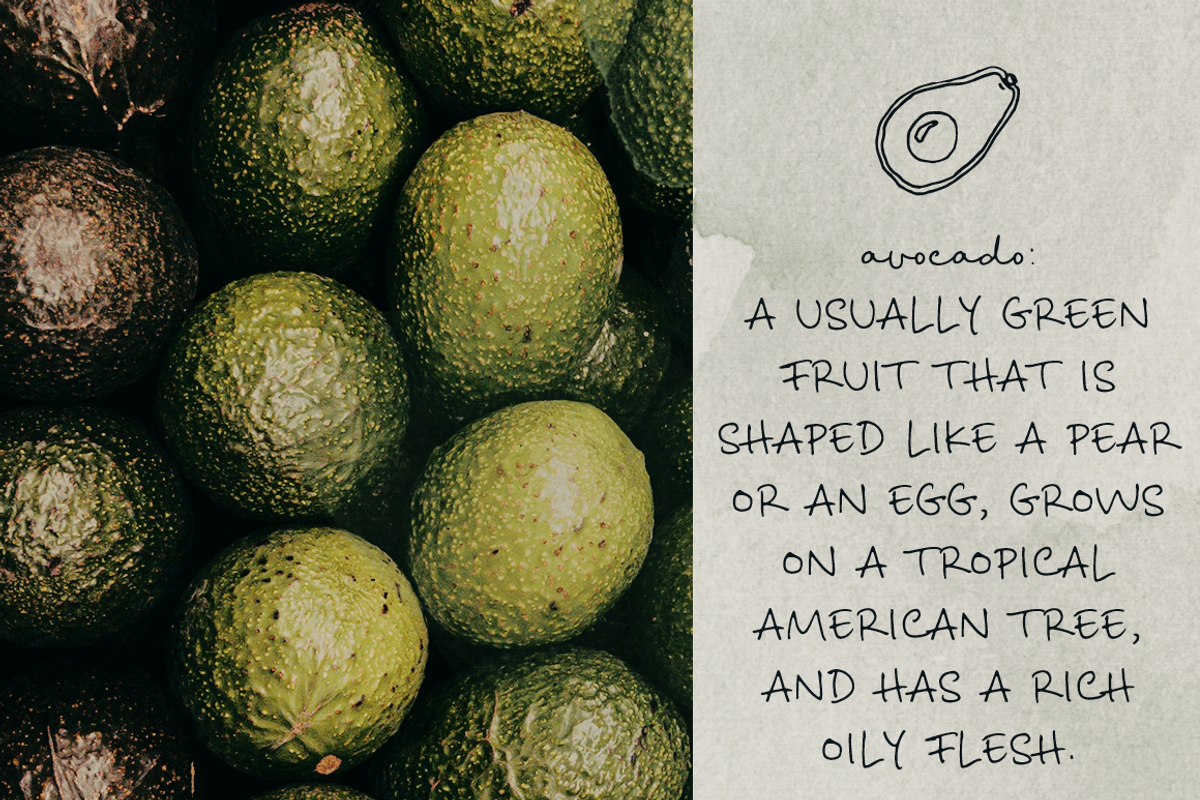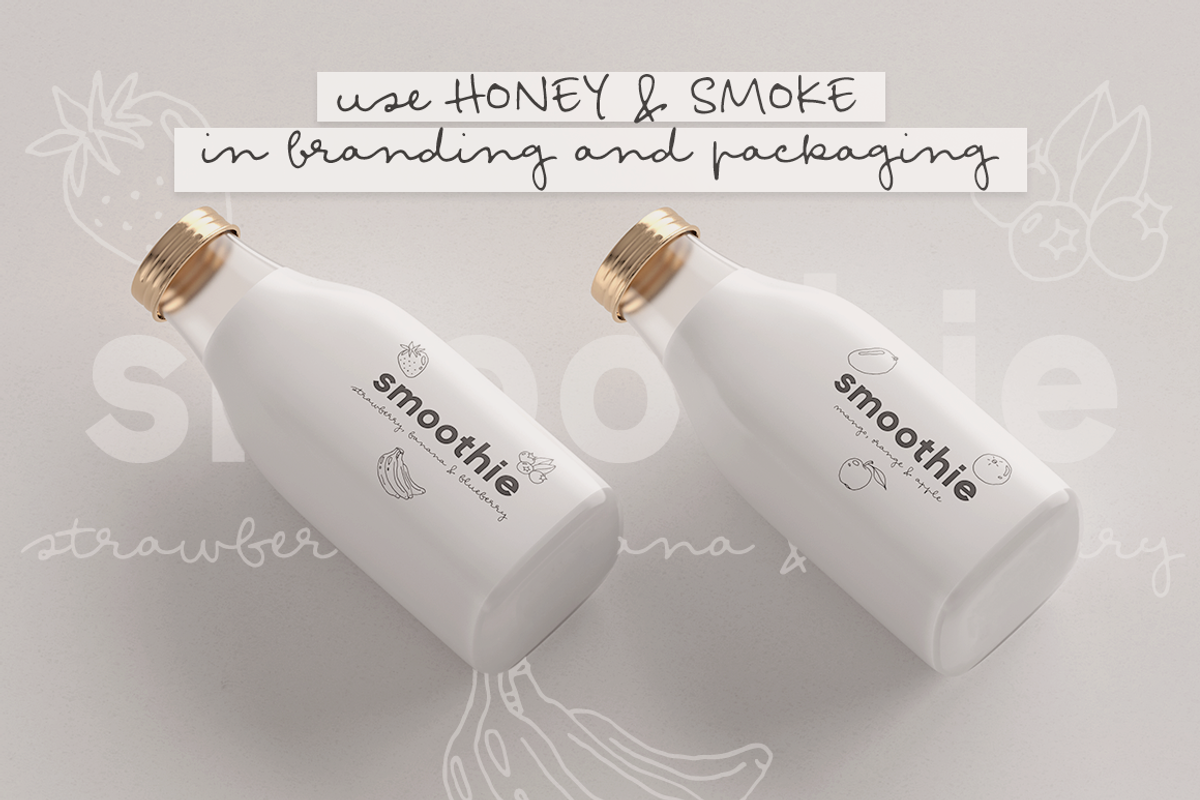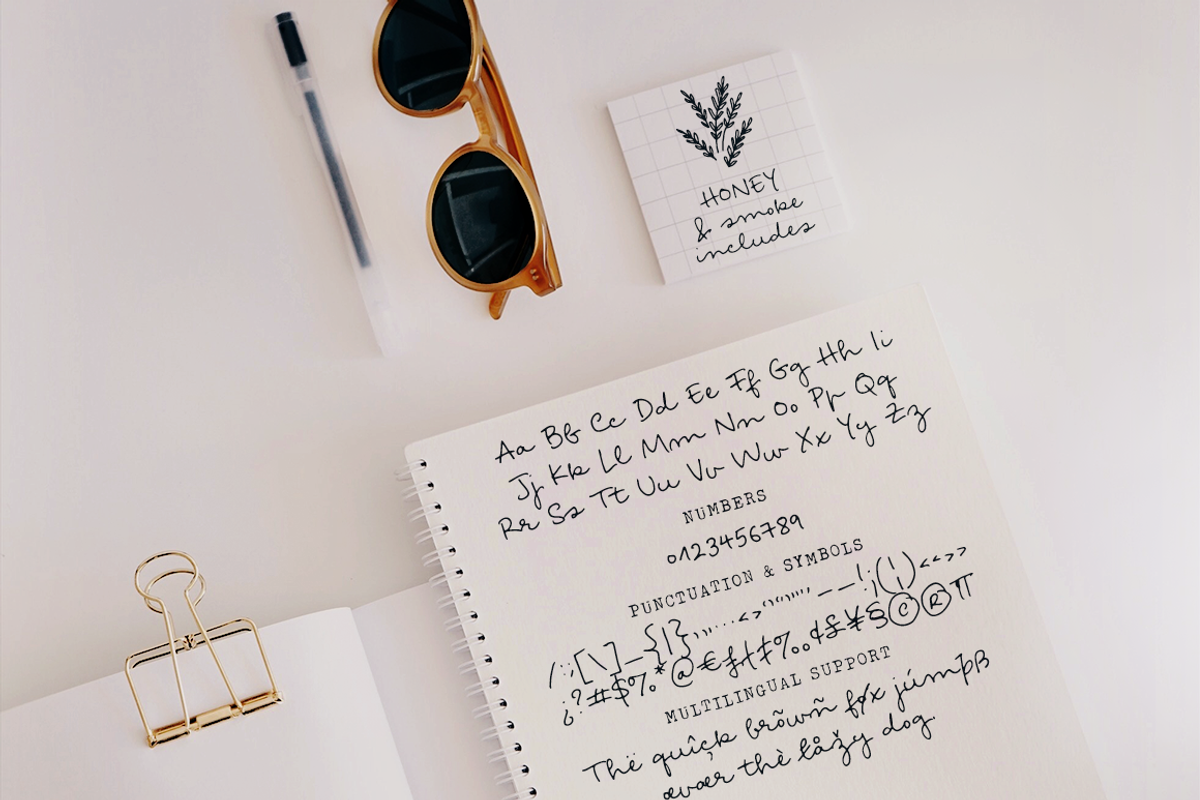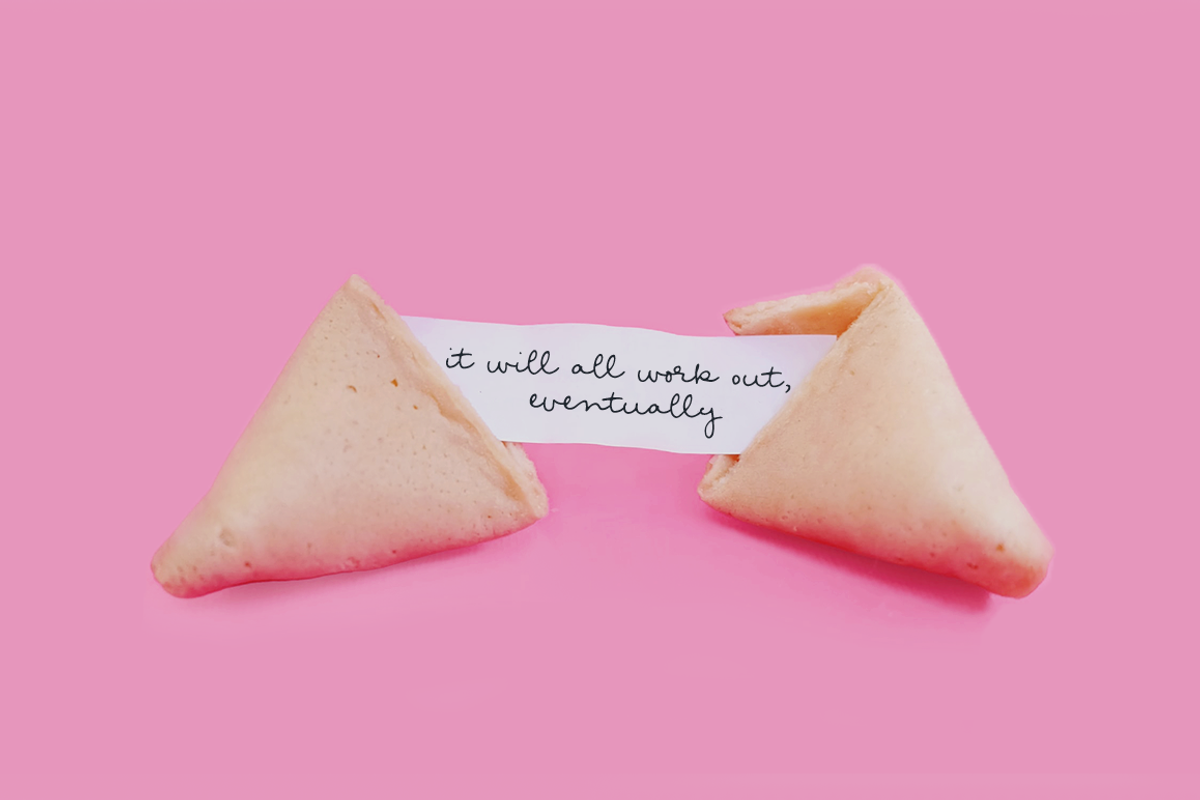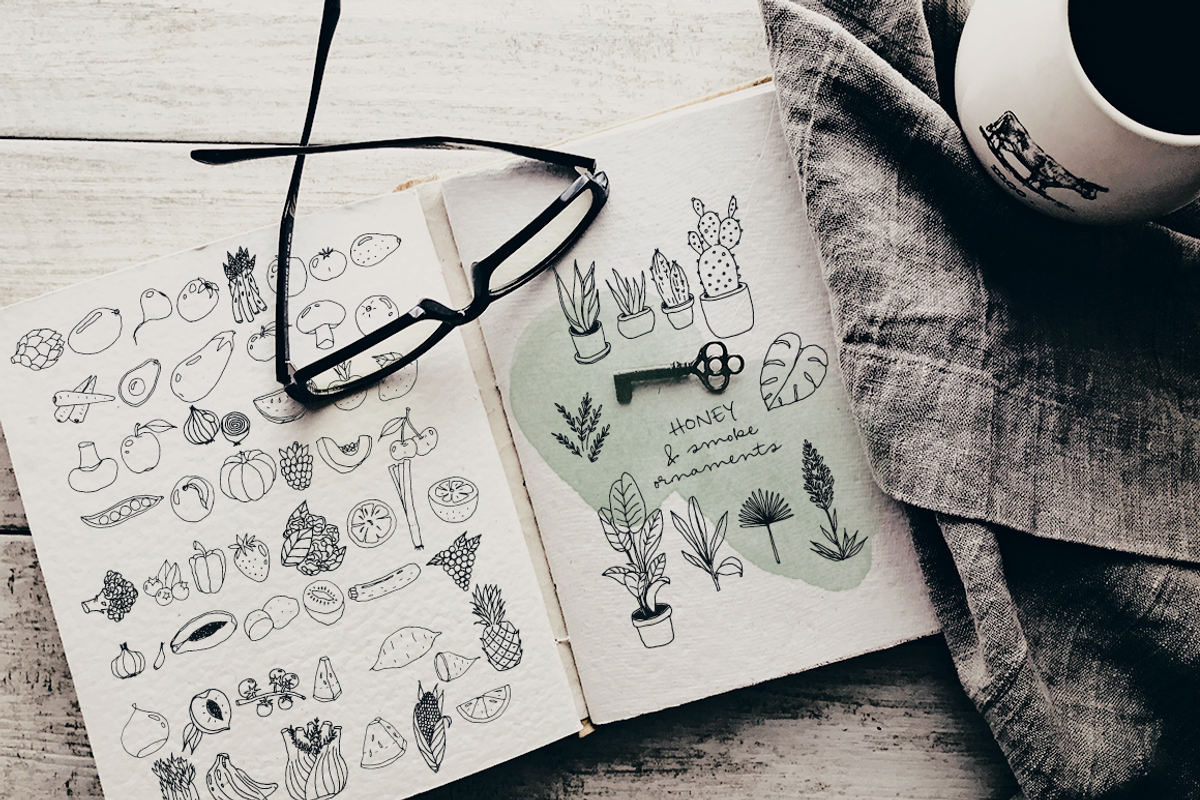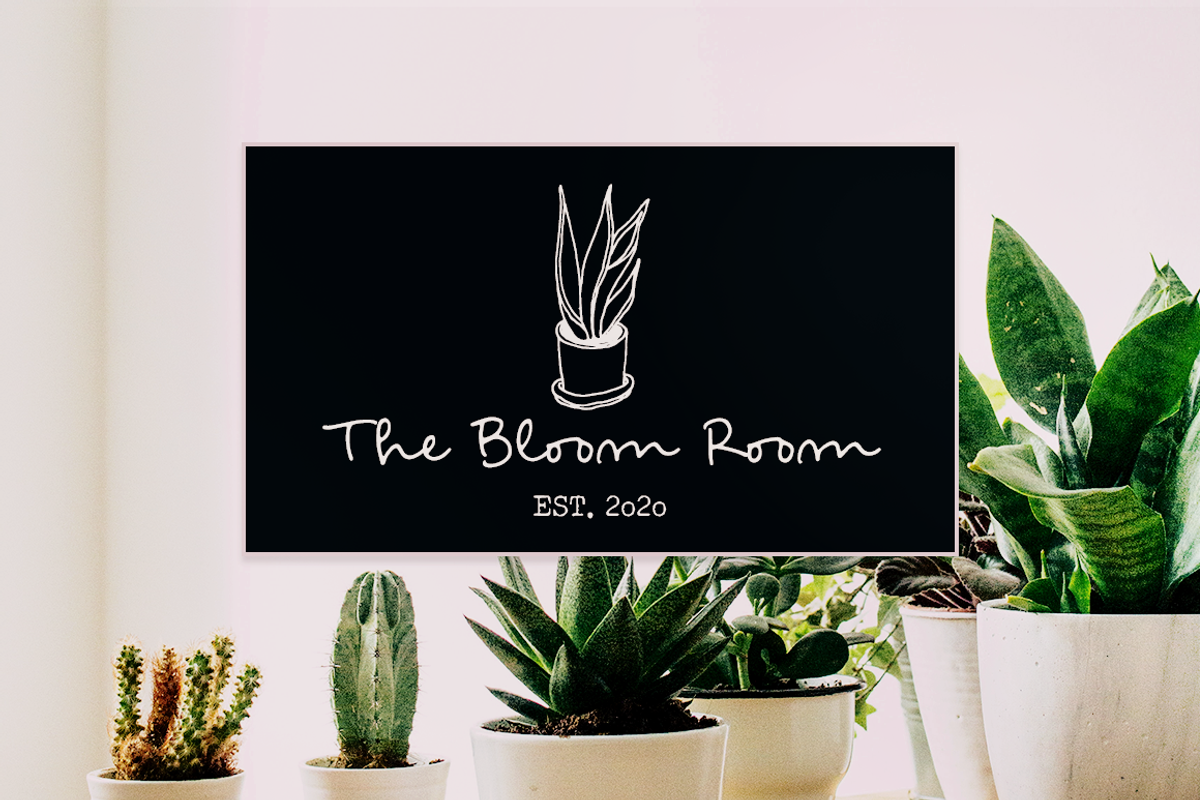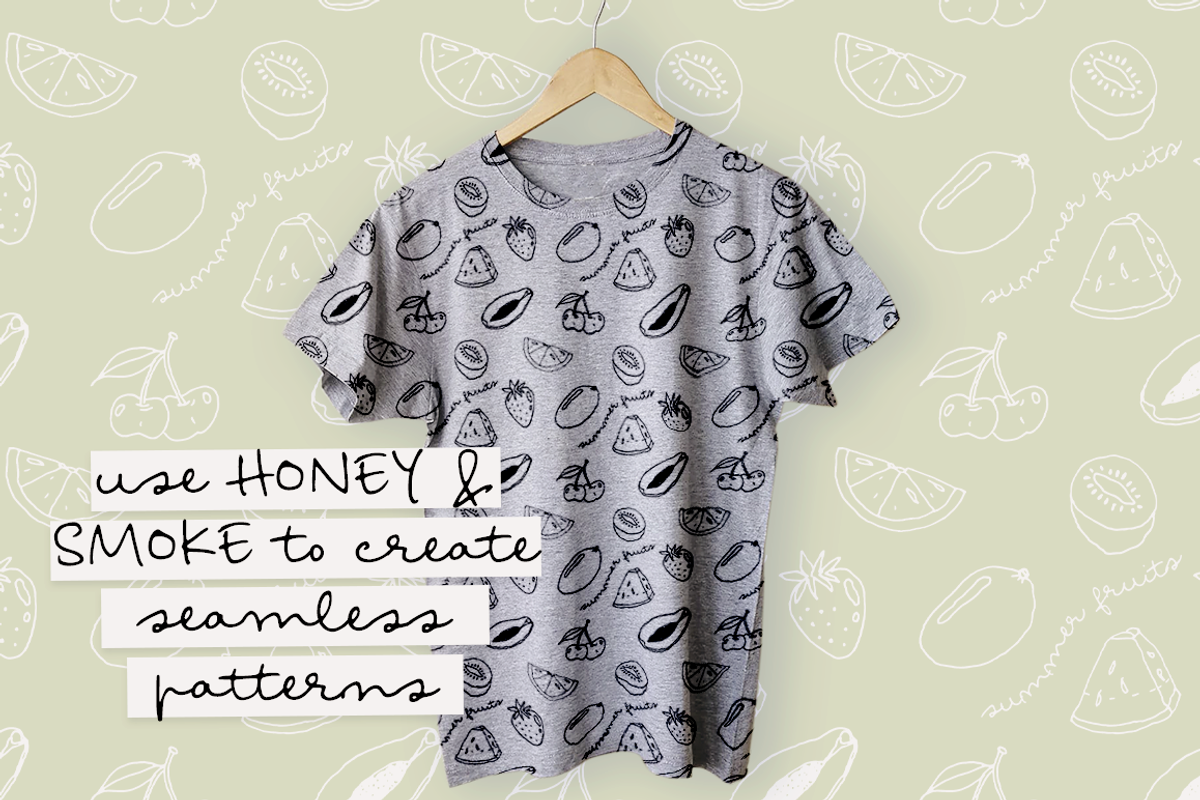
Honey & Smoke font collection
Honey and Smoke is a handwritten script font and illustration collection, perfect to create cute handmade designs, such as logos, packaging, prints and postcards, patterns, and social media posts.
Honey and Smoke includes:
A handwritten script font with tons of ligatures and a bonus slant version
A dingbat font with 62 handmade line drawings, including fruits, vegetables and plants, with a bonus blackout version. The individual illustrations are also included in AI and PNG files.